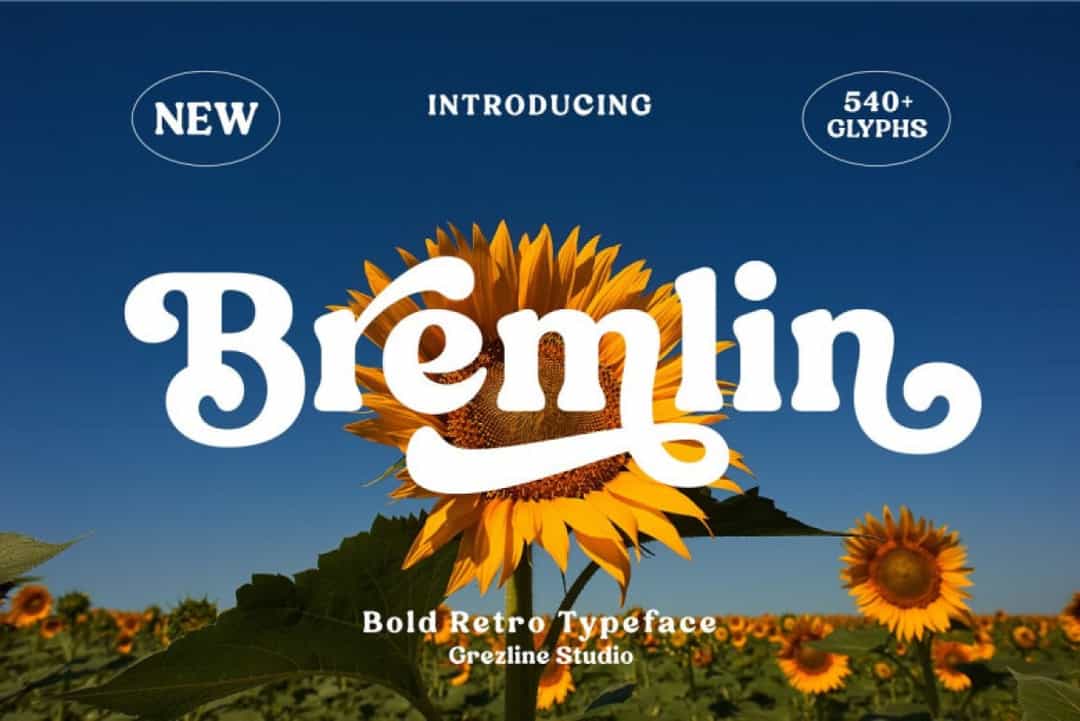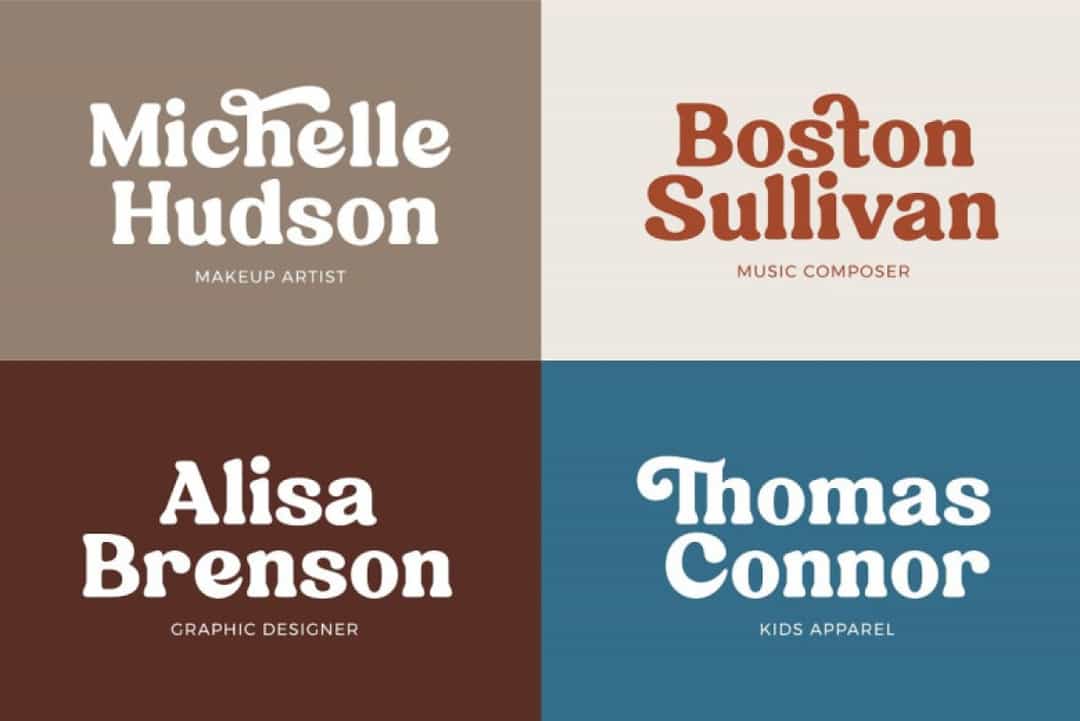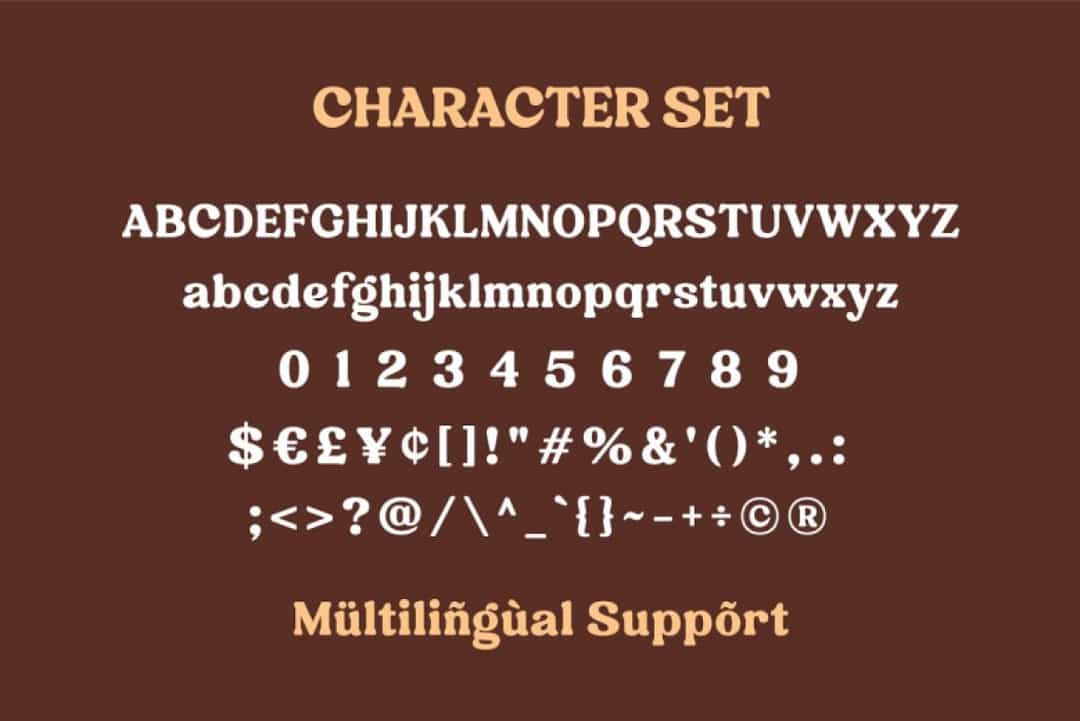
Bremlin can be described as an impressive vintage serif font featuring multiple alternative glyphs. Perfect for creating retro and vintage styles, Bremlin font can also be utilized in various designs including posters, logos, covers, quotes, product packaging merchandise and social media among many others! Utilize it now and unleash your creative juices!